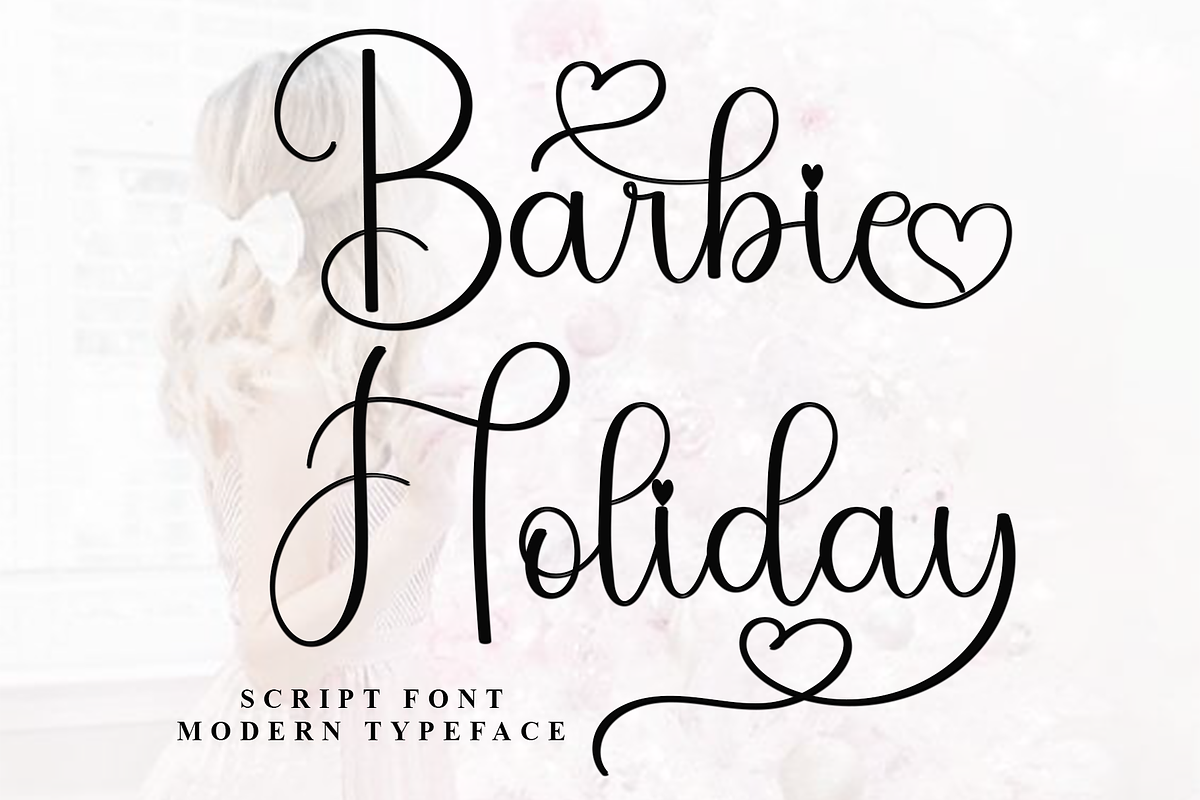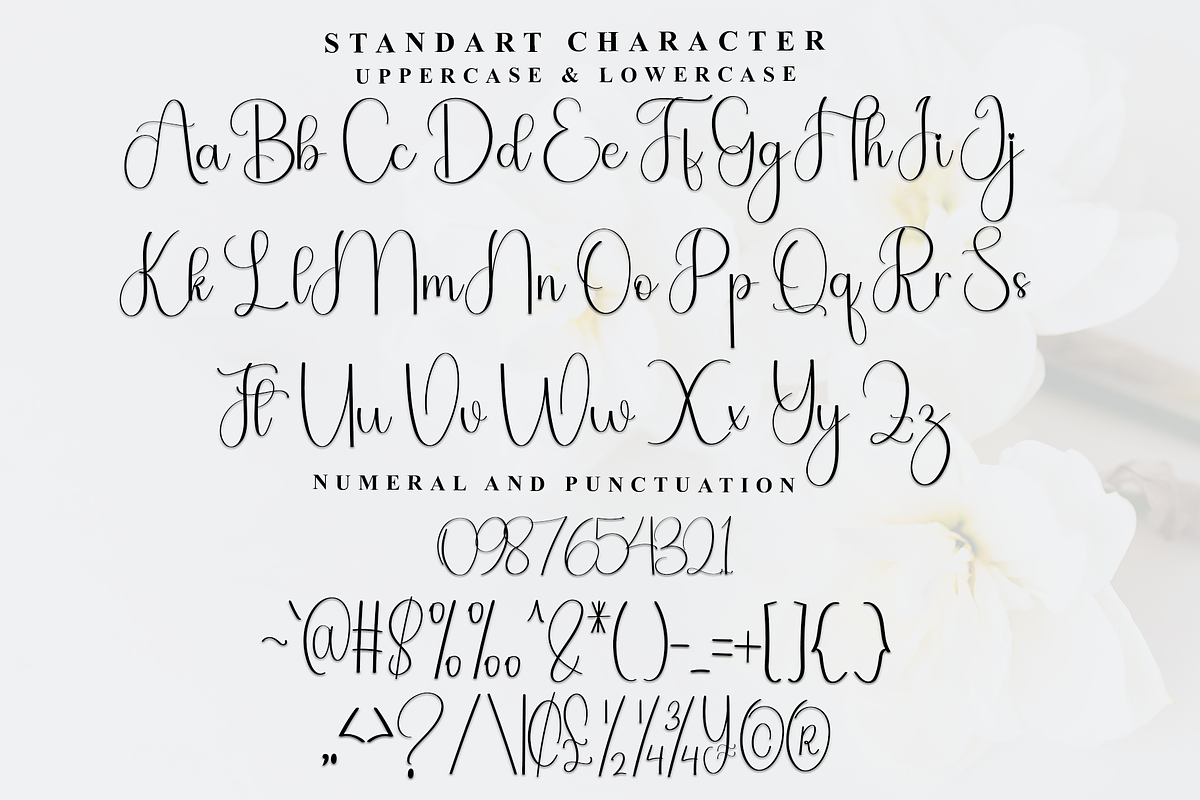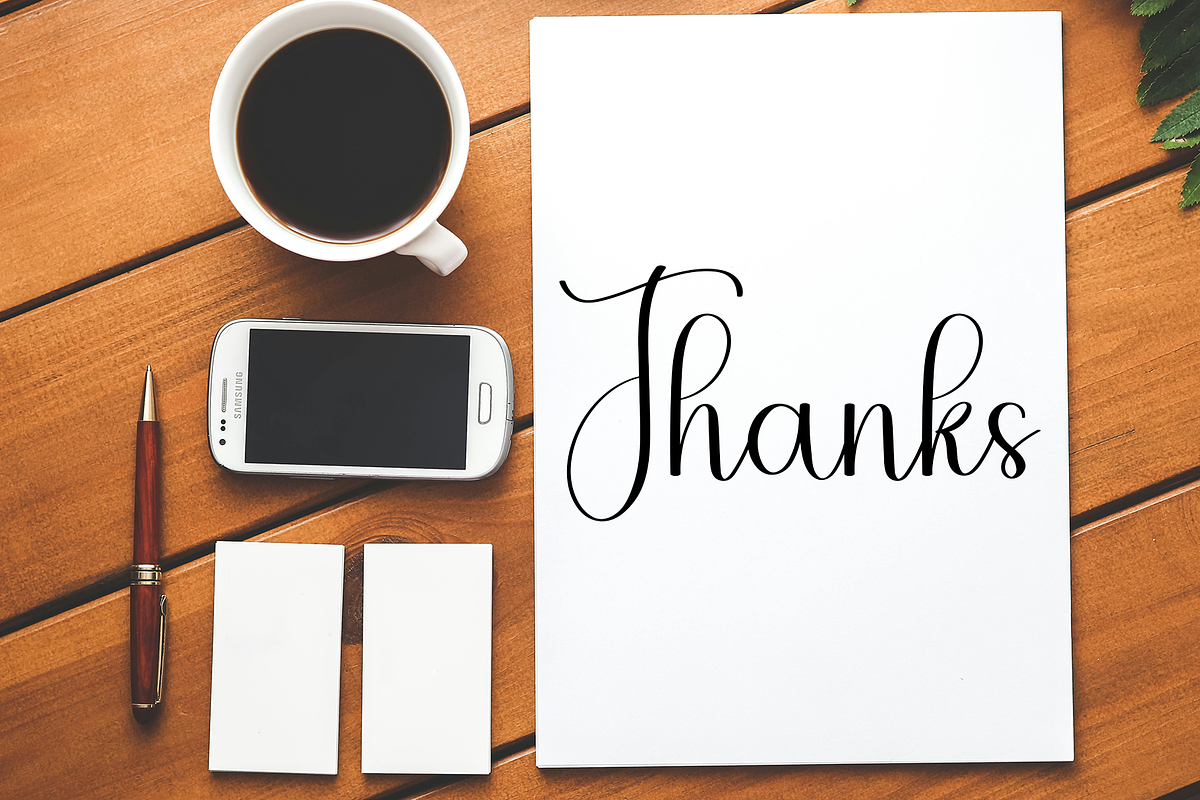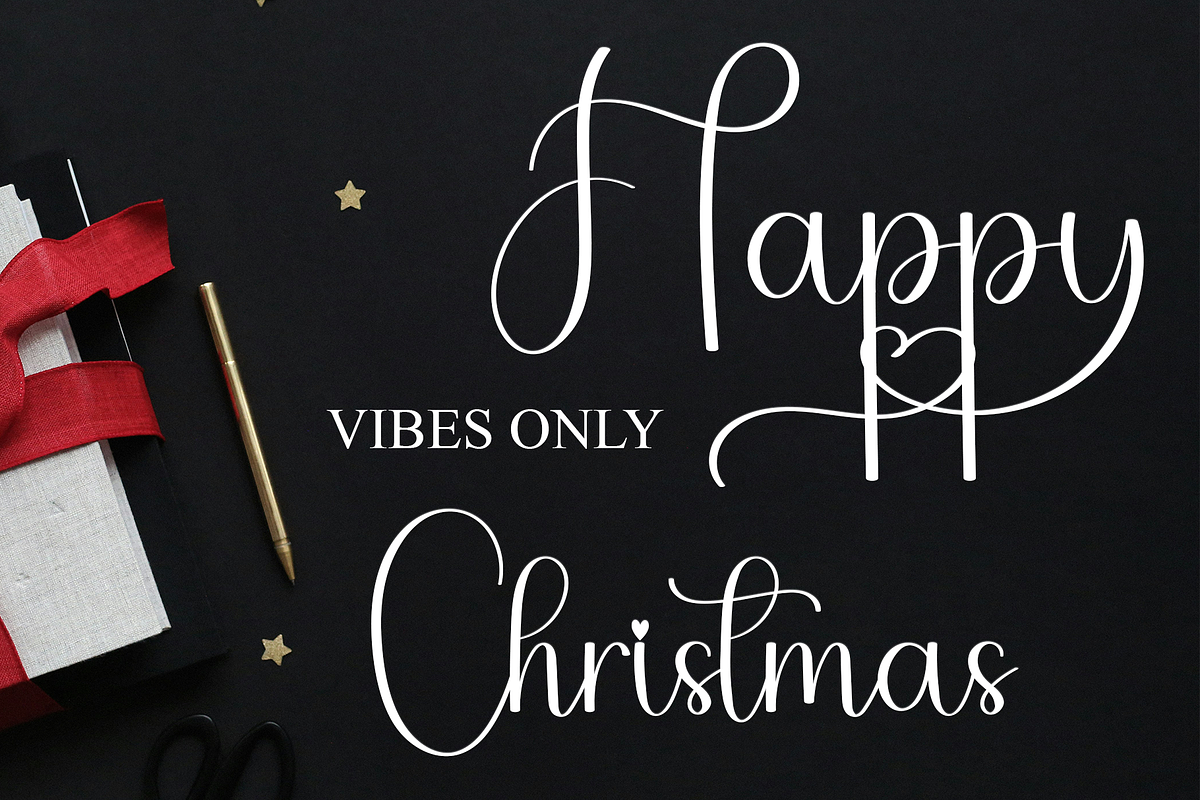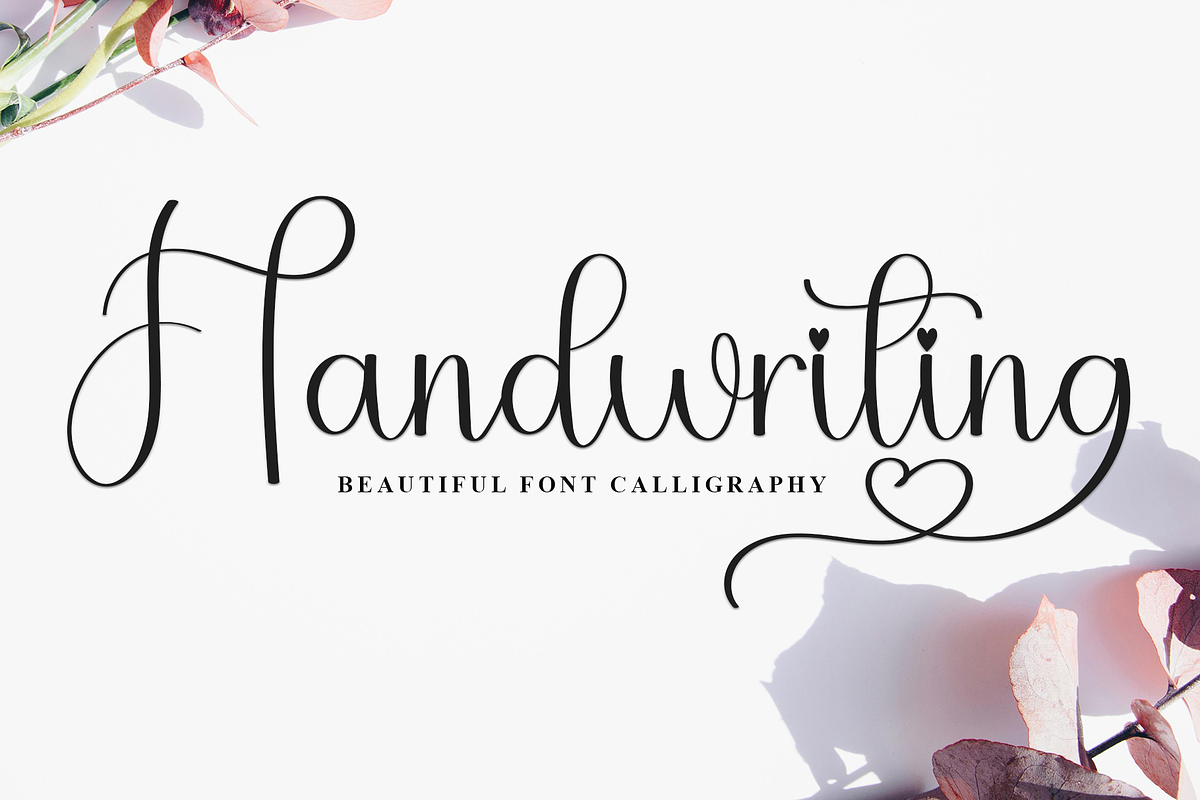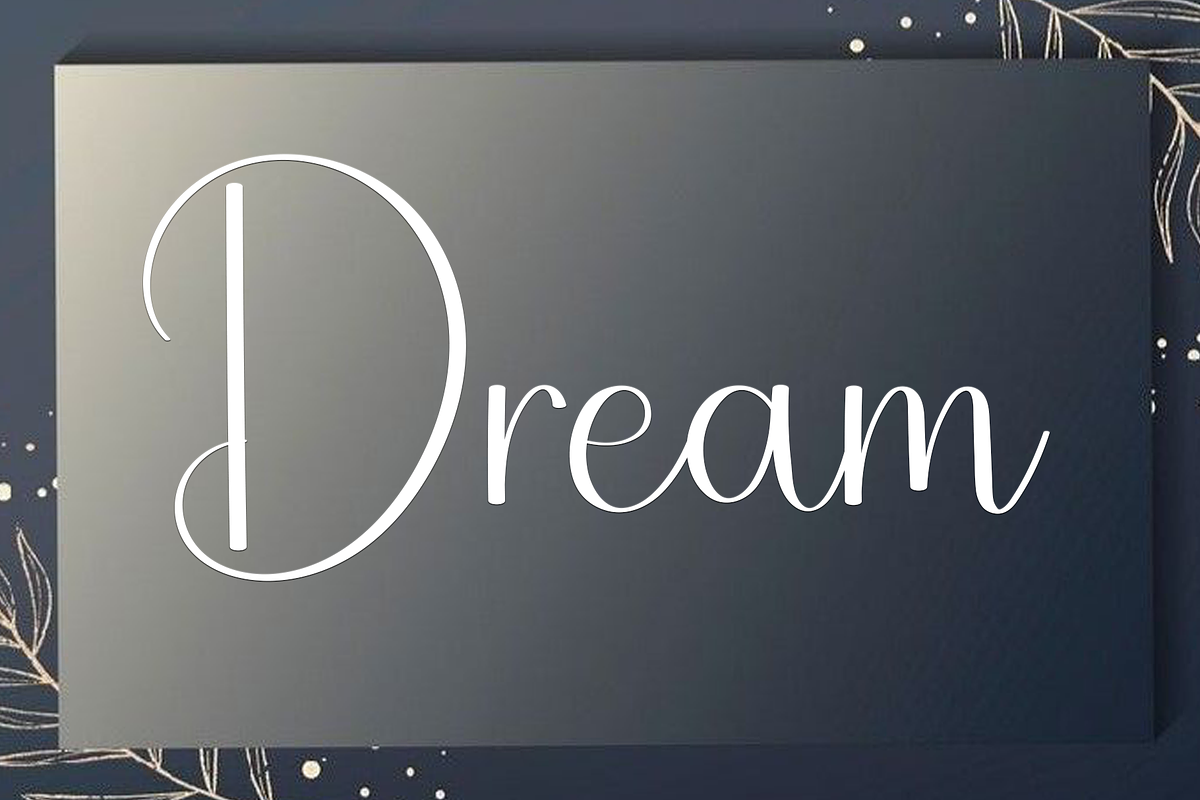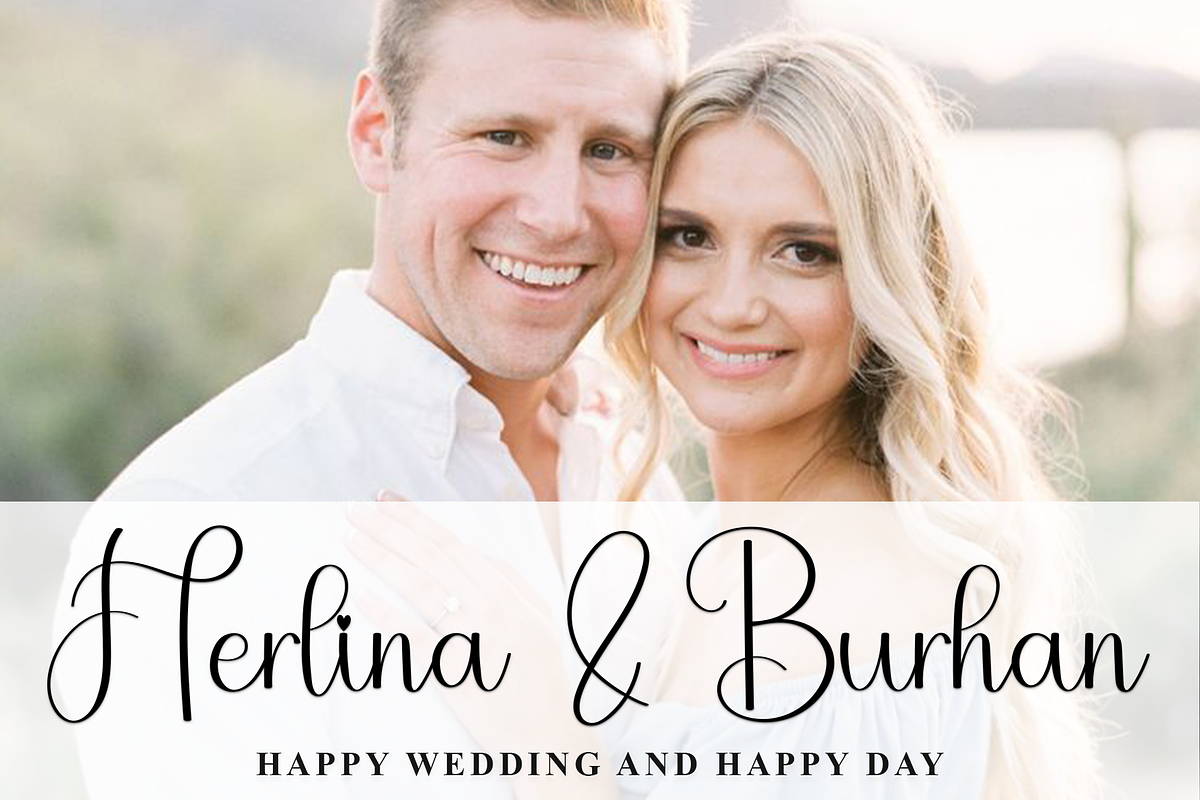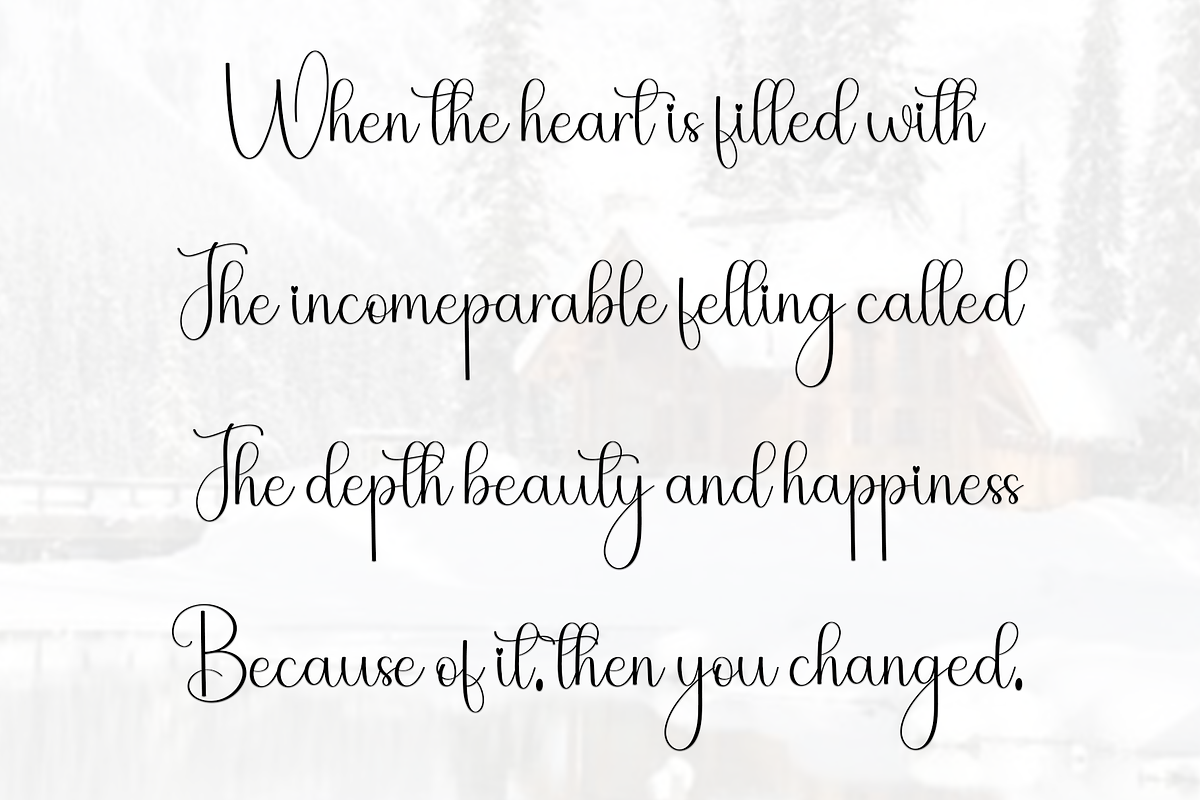
Barbie Holiday
Barbie Holiday is a beautiful and eye-catching font designed with a soft, unique touch. Its distinctive strokes give it a special character, making it meaningful and versatile for future use. With various characters, it’s perfect for design projects, crafts, and other creative works.